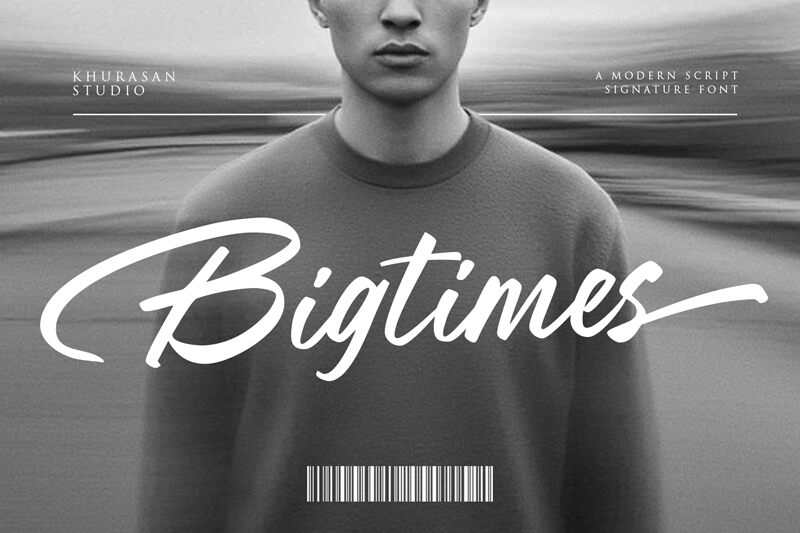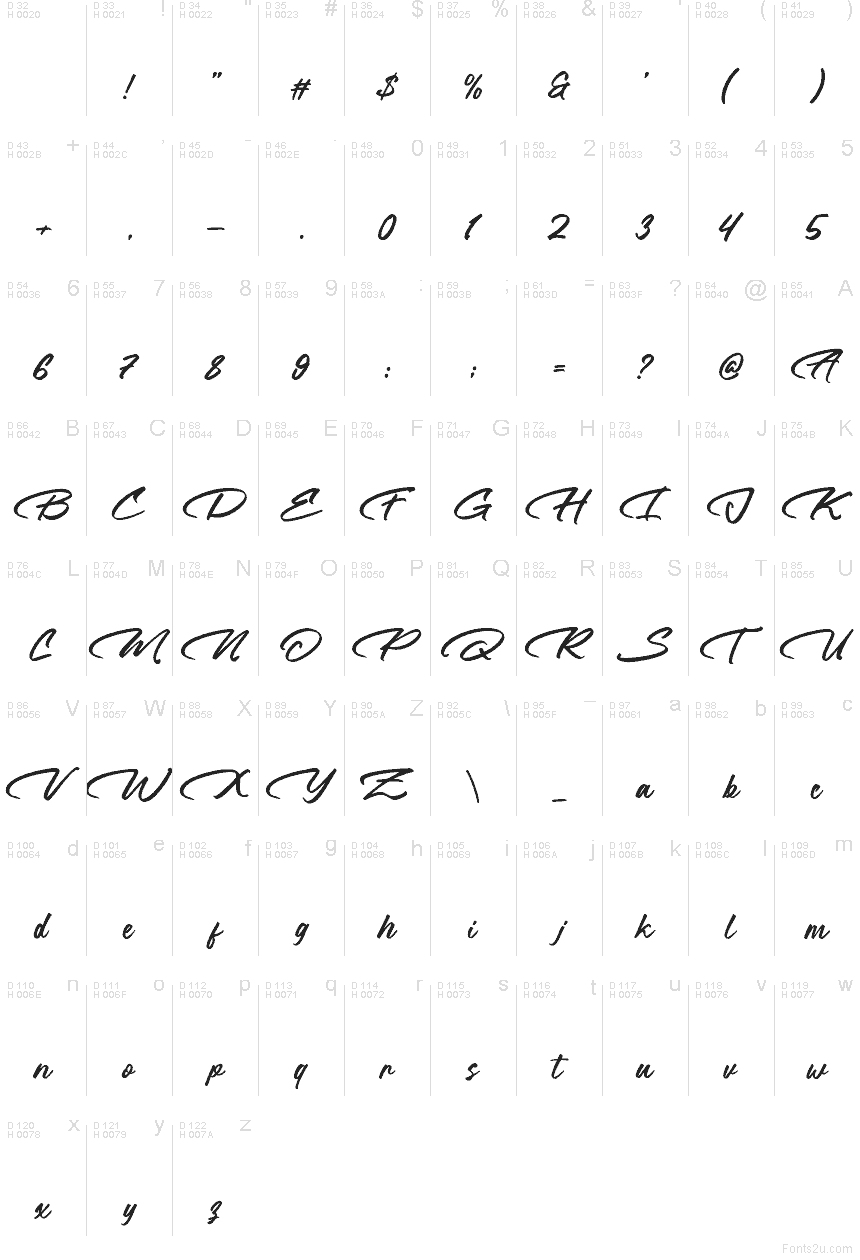
Bigtimes, a free brush-script handwritten font from Khurasan, leans into fast, confident lettering with a big opening sweep and loose connected strokes that feel signed rather than typeset. The letters have a casual slant and a slightly bouncy rhythm, while the oversized flourish gives the whole font a breezy, poster-like motion.
It fits branding with a personal tone, cafe menus, social media headers, packaging, and event posters where that long leading gesture can carry the line by itself. As a free font, Bigtimes also makes sense for cover lines, title cards, and short logotypes that want a handwritten pull without turning stiff or precious.